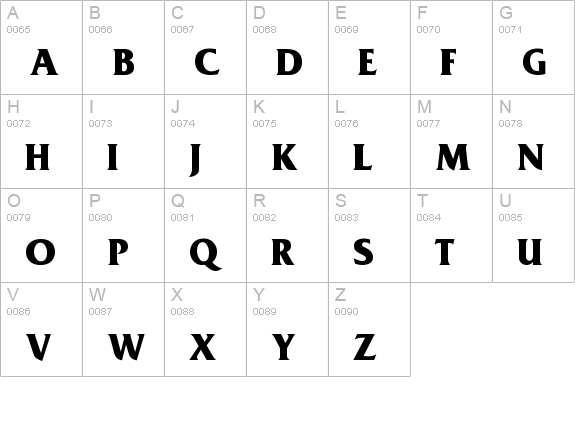
Muster Condensed SSi Bold Condensed Font Details
Muster Condensed SSi Bold Condensed is a strong, high-contrast, condensed-width variant in the Muster typeface family \xE2\x80\x94 well suited to headlines, attention-grabbing titles, and strong calls-to-action.
Muster Condensed SSi Bold Condensed font is a striking and modern typeface that exudes confidence and style. With its bold and condensed design, this font is perfect for making a statement in headlines, logos, and branding materials. Its strong and impactful appearance commands attention and adds a touch of sophistication to any design project. What's even better is that Muster Condensed SSi Bold Condensed font is available for free download at FontsMarket.com. This means you can easily access this impressive font and incorporate it into your creative projects without any cost. Don't miss out on the opportunity to enhance your designs with the bold and eye-catching Muster Condensed SSi Bold Condensed font today!